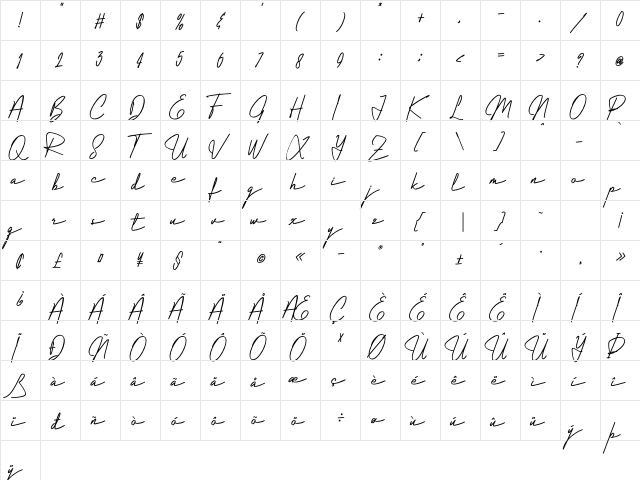
Falcon Regular
Design Context for Falcon Typeface
Falcon is a composed and adaptable typeface that performs quietly and consistently across a wide range of design contexts.
Pro Tip: Pair Falcon with a font of contrasting weight or personality to build a more expressive typographic hierarchy.